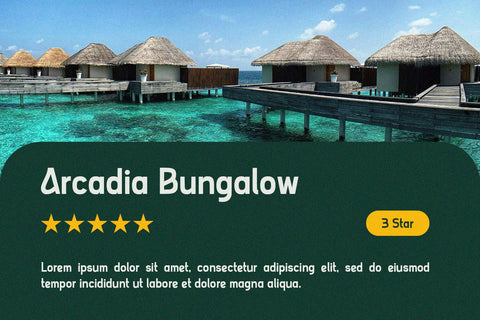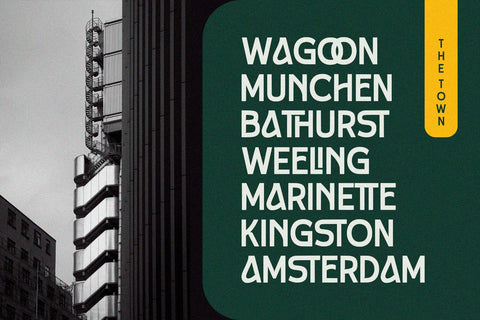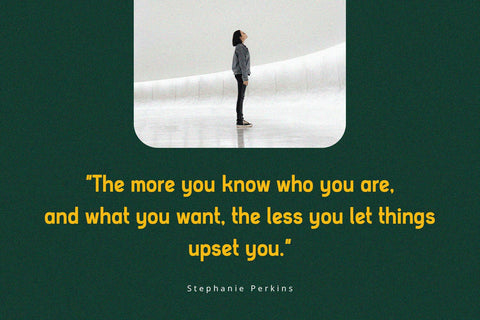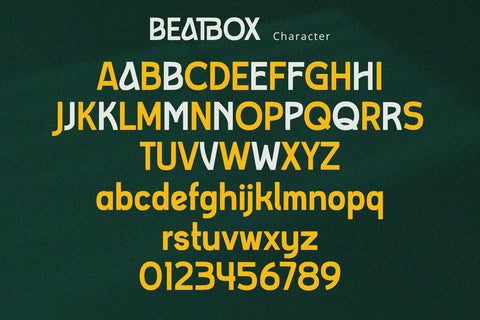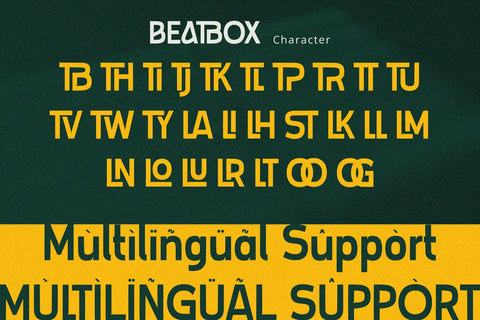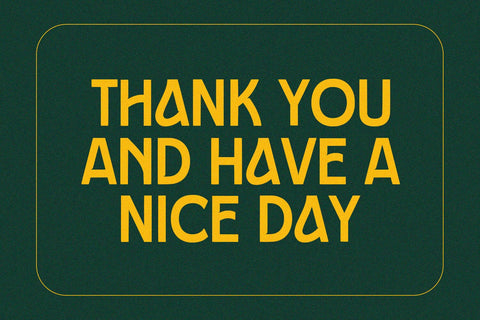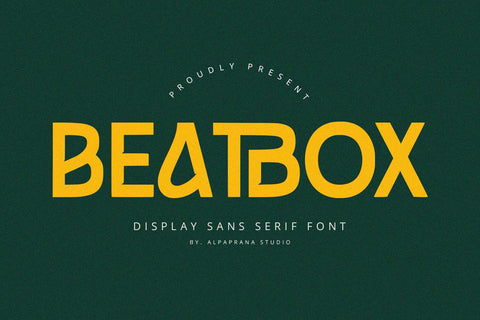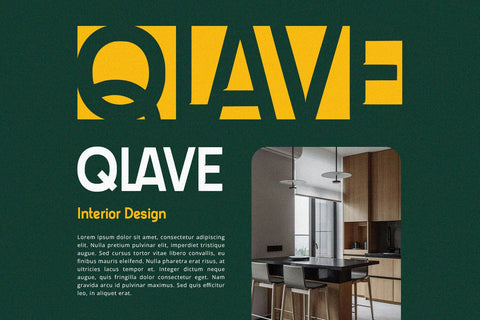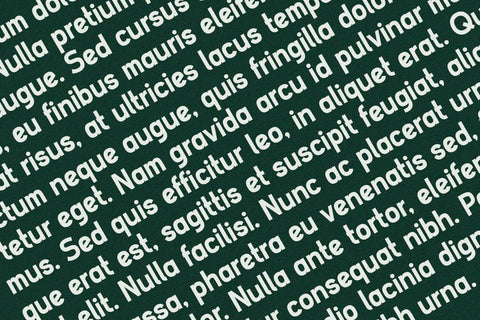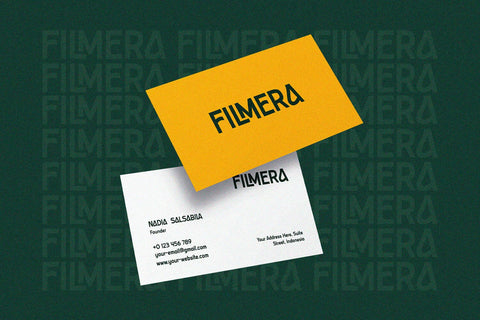
Beatbox - Sans Serif Font
Beatbox is display sans serif font with elegant and modern feels. It will be perfectly used for Branding, Logo Design, Lettering, Logotype, Clothing, Poster, magazine, packaging, posters, shopping bags, t-shirts, book covers, photography, special events and other design project.